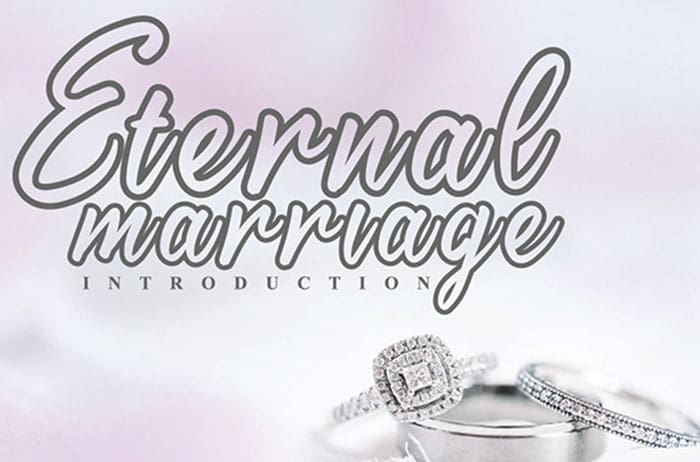
Eternal Marriage Calligraphy Font
Eternal Marriage is a cute and casual calligraphy font with an incredibly friendly feel. Whether you’re looking for fonts for Instagram or calligraphy scripts for DIY projects, this font will turn any creative idea into a true piece of art! Designed this font by Andika Studio. You can also search more free Calligraphy Fonts.